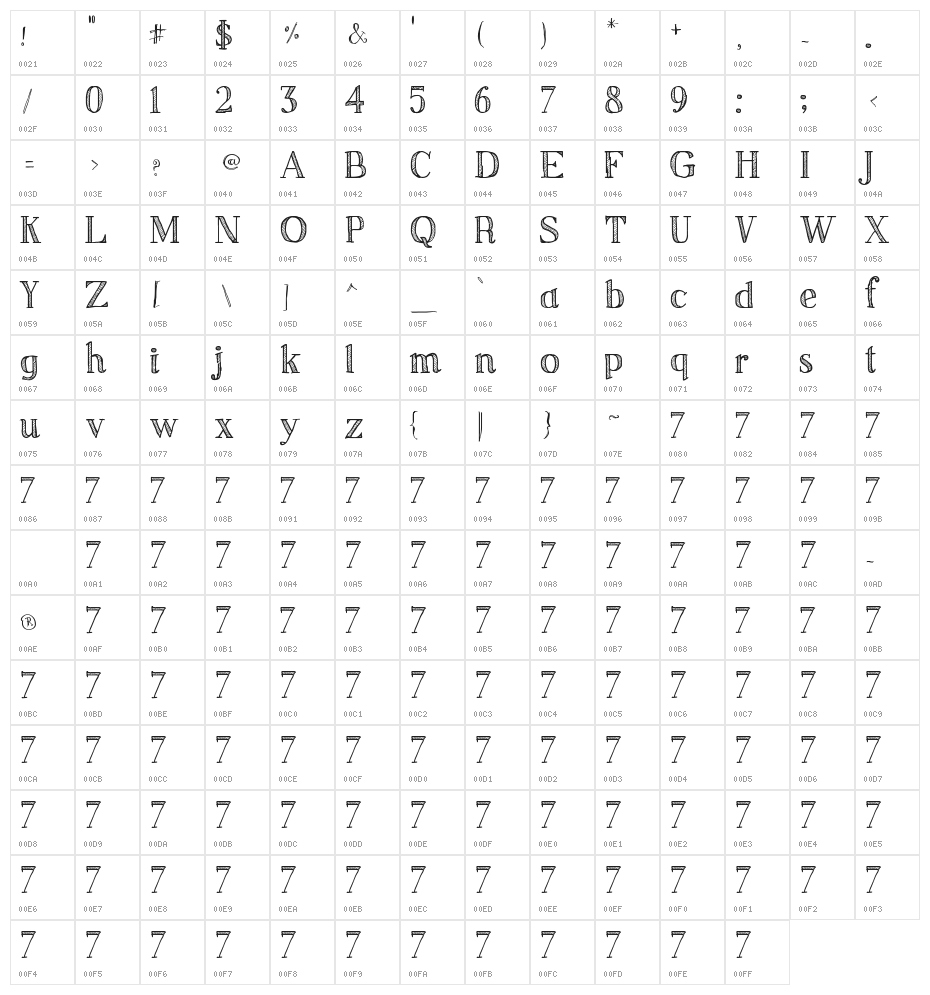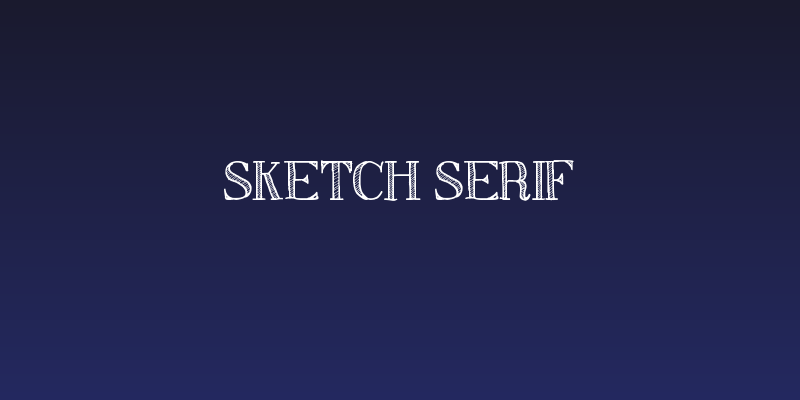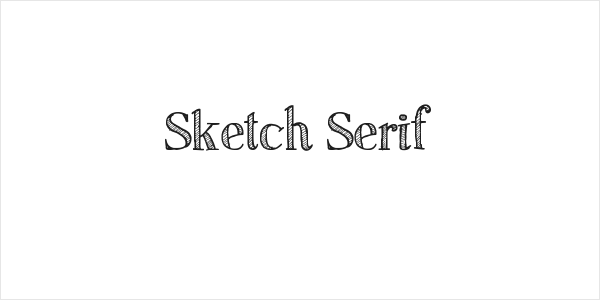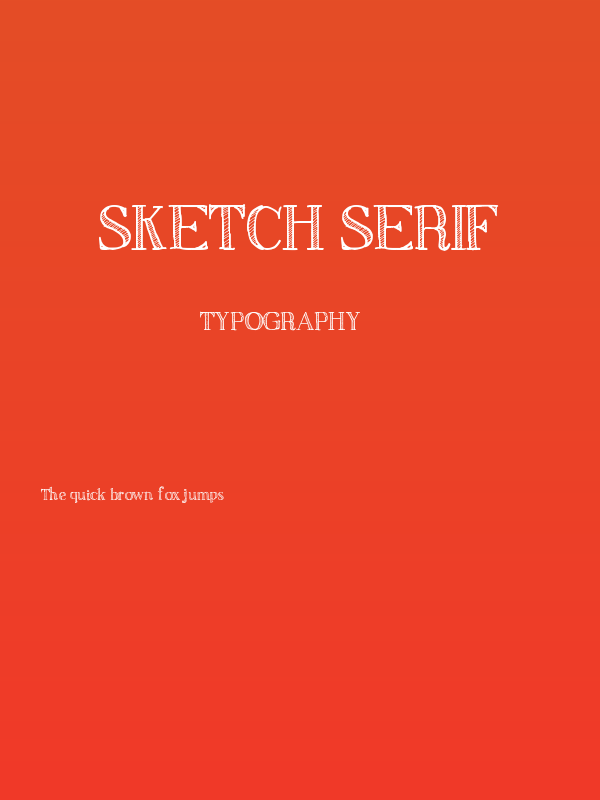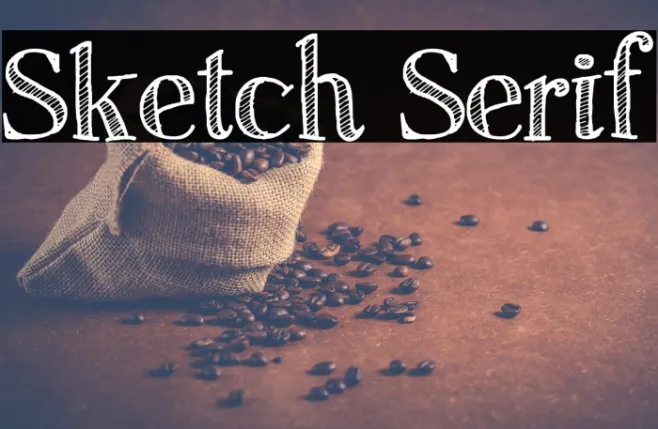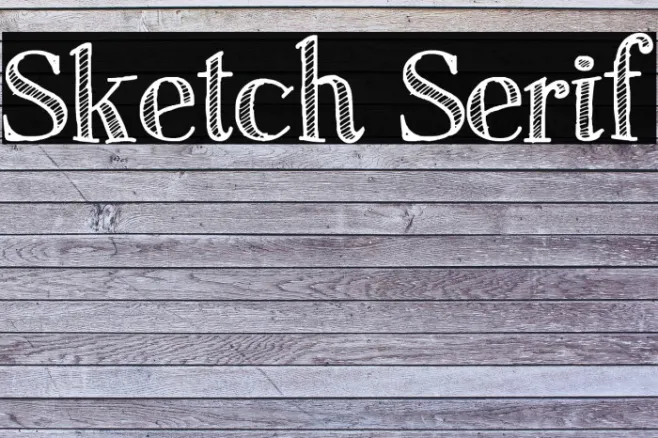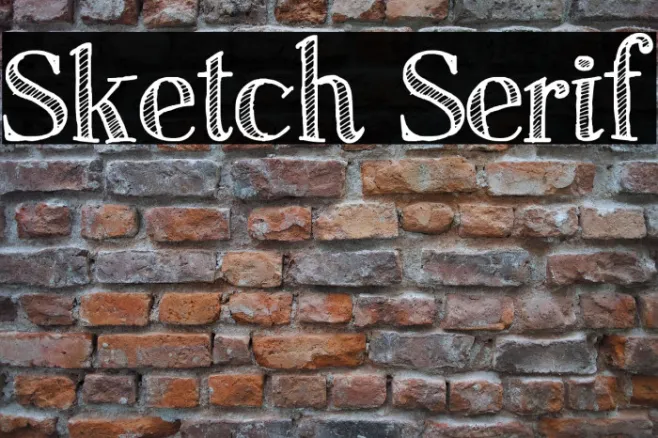
Sketch Serif Font
Sketch Serif Description
This font features a distinctive sketch-like appearance with serif elements that give it a hand-drawn, artistic feel. The letters are outlined with a textured, hatched design that adds depth and character. The uppercase and lowercase letters maintain a consistent style, with serifs that are slightly exaggerated to enhance the sketch effect. Numbers and special characters follow the same design principles, ensuring a cohesive look across all glyphs. The font's unique style makes it stand out, offering a playful yet sophisticated aesthetic suitable for creative projects.
| Proposed Projects | Ideal for artistic projects, children's books, creative branding, and playful invitations. |